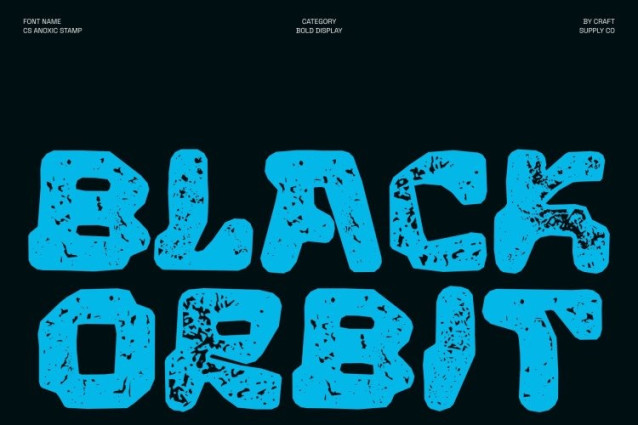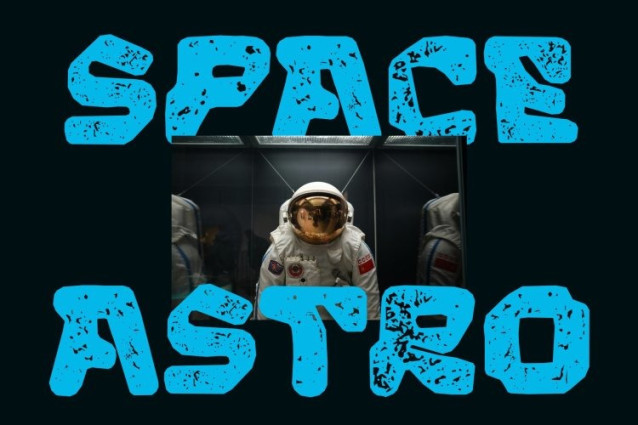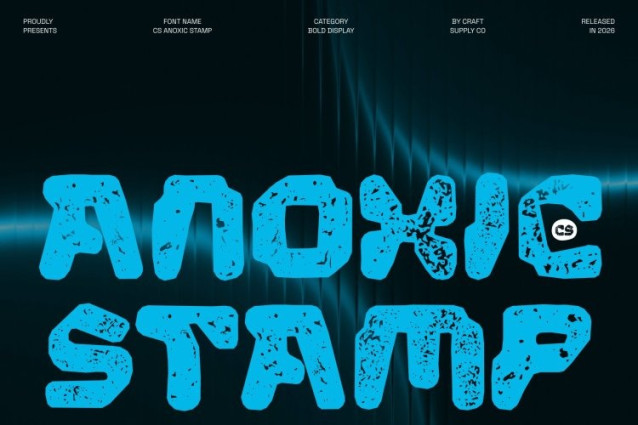
CS Anoxic Stamp Font
CS Anoxic Stamp Font This is a bold experimental display font created for designers who refuse to follow conventions. Its unconventional letterforms and abstract structure remain daring and expressive, now enhanced by a rugged stamp effect. The textured, imperfect impressions introduce a raw, tactile quality making each character feel forcefully pressed, worn, and visually charged with attitude.
Unforgettable Presence with Grit and Impact
Designed to disrupt and dominate, this font delivers loud visual impact through its unpredictable forms and distressed surface. The stamp texture adds depth and intensity, amplifying the sense of rebellion and controlled chaos. This font doesn’t aim for comfort it commands attention and leaves a lasting imprint on the viewer.
Contemporary Experimentation with Vintage Edge
While rooted in modern, concept-driven design, the stamped finish injects an old-print, analog feel that contrasts beautifully with its futuristic structure. The result is a striking fusion of innovation and rough authenticity bold strokes, abstract construction, and weathered texture working together to express individuality and creative freedom across both digital and print media.
Perfect for Expressive, Avant-Garde Design Projects
This font ideal for experimental posters, album covers, art installations, edgy branding, high-fashion visuals, and futuristic campaigns. Its bold experimental form paired with vintage stamp texture creates typography that is unapologetic, artistic, and impossible to ignore. This font isn’t about playing safe it’s about making a statement that stays.